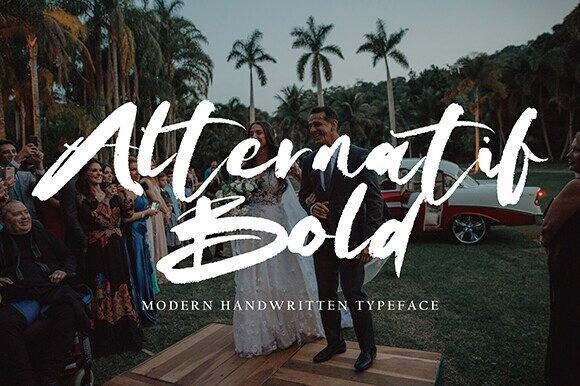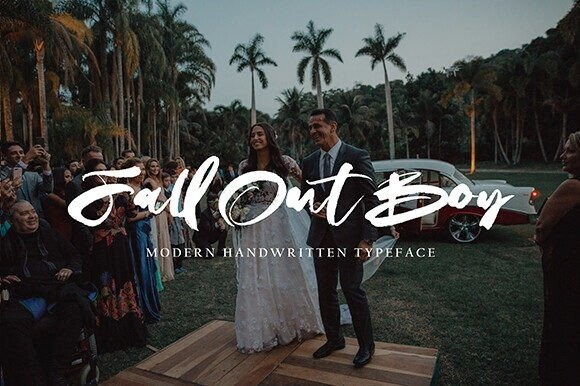
Alternatif Bold Font
Alternatif Bold Font is a sweet and cursive handwritten font. This gentle font will look
gorgeous on a variety of design ideas. It will add a joyful and romantic touch to each of your projects!